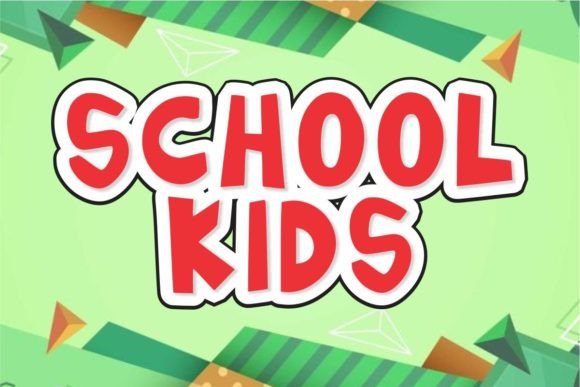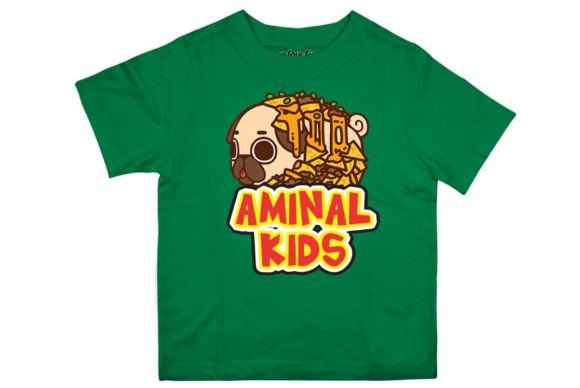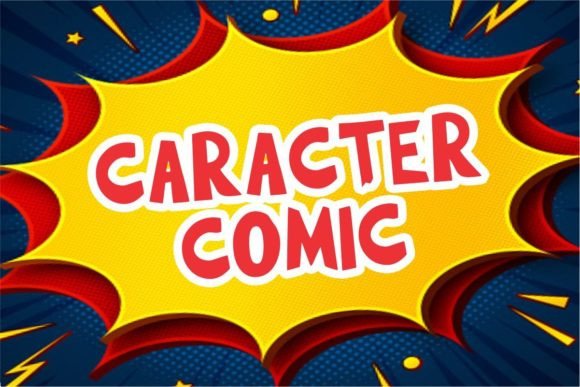
Introduction to Nime Kids Font
Nime Kids is a childish and happy looking font that is perfect for bright and playful designs.
The letters are bold and slightly wavy that have a friendly and approachable feel, making them ideal for children’s books, toys and other design projects .
Why Choose Nime Kids Font?